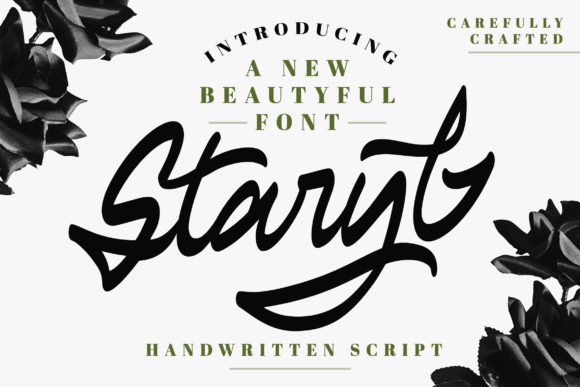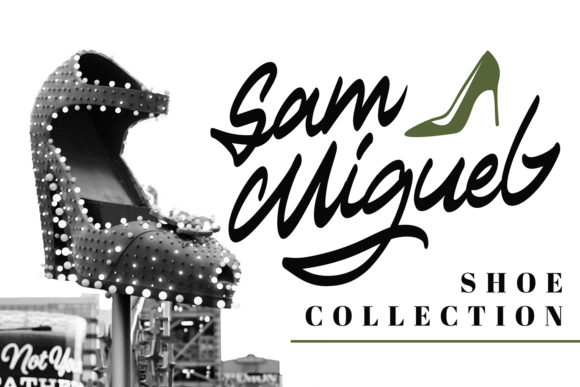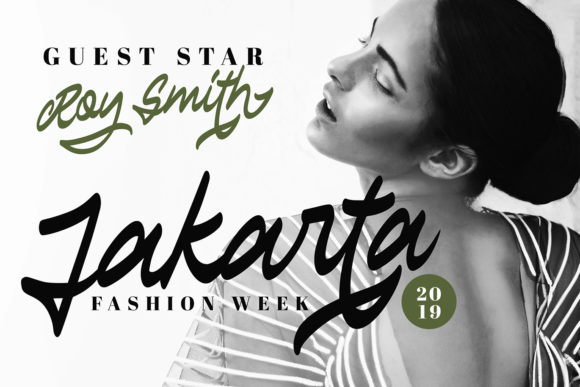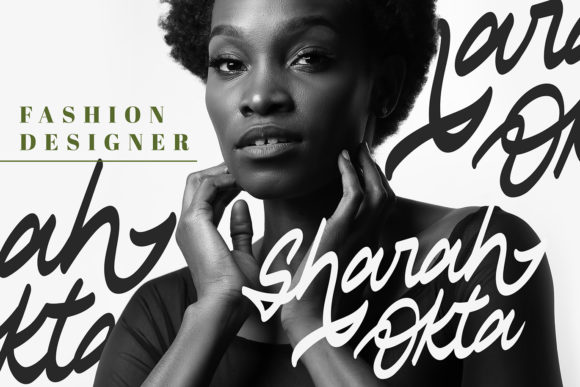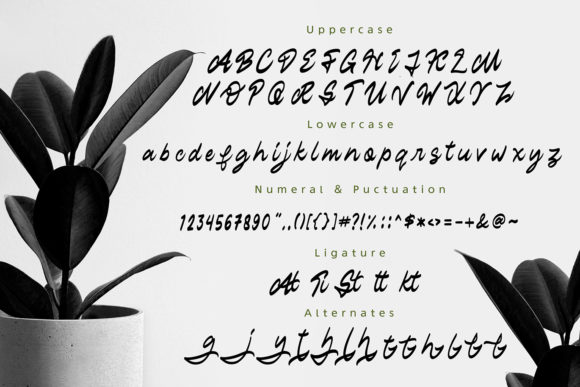
Staryl Font
About Staryl Font
Staryl is a stunning and unique handwritten font with sharp edges and bold swashes. Use it to turn any design project into a stand out!